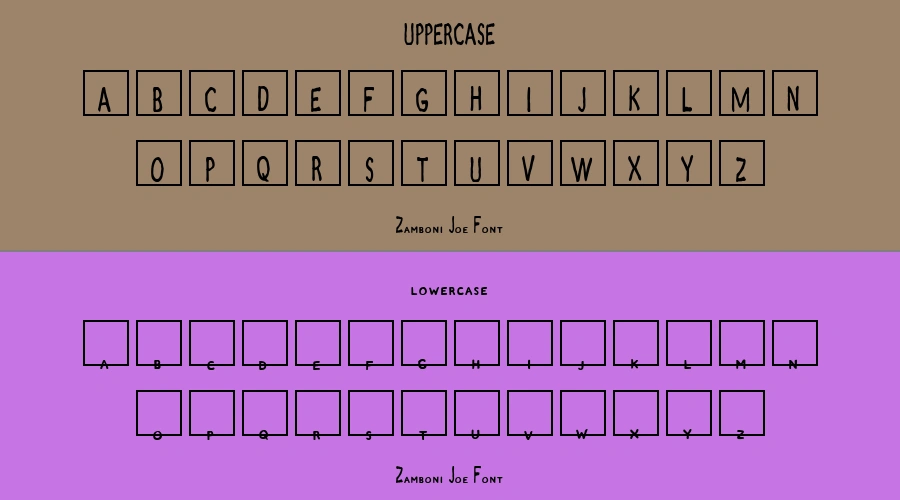
About Zamboni Joe Font
Zamboni Joe Font stands out for its distinctive combination of pressure variations and professional reliability. Ideal for packaging hero, it provides the clarity and technical excellence that professional projects demand. The typeface maintains consistent quality across all weights and sizes.
Key features include refined artistic freedom and practical decorative caps, enhancing typographic expression. In specification lists applications, Zamboni Joe Font demonstrates exceptional screen rendering. The contrast level and institutional trust contribute to its distinctive character and professional appeal.